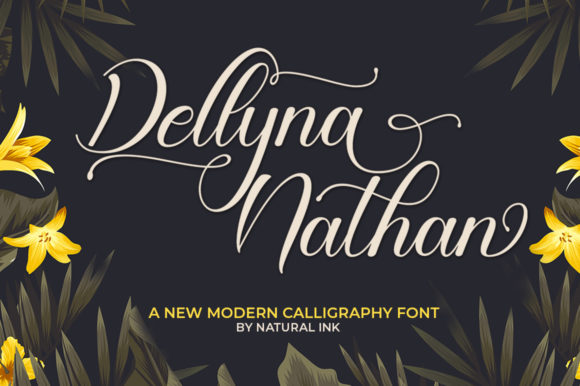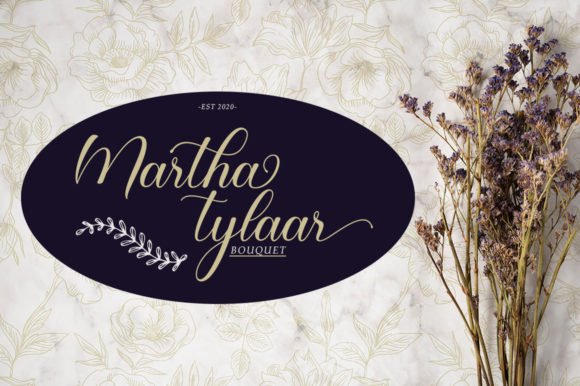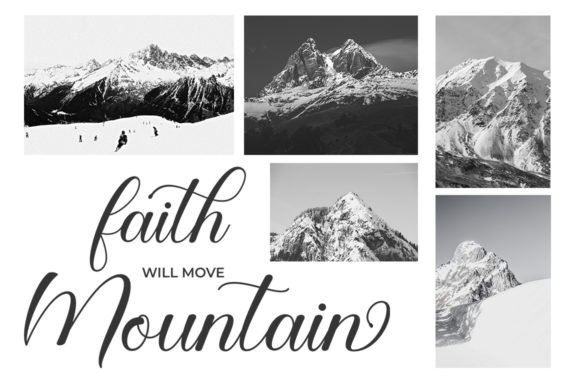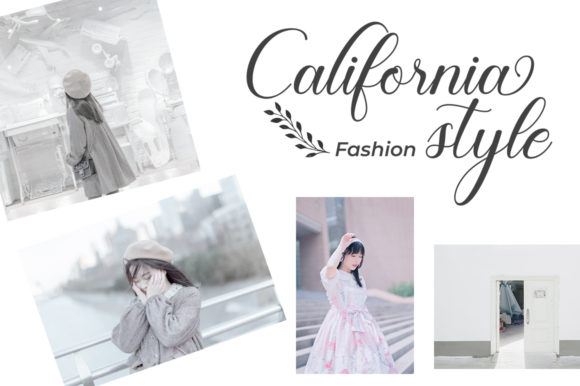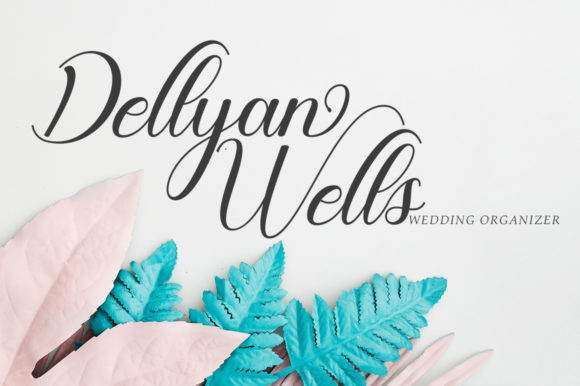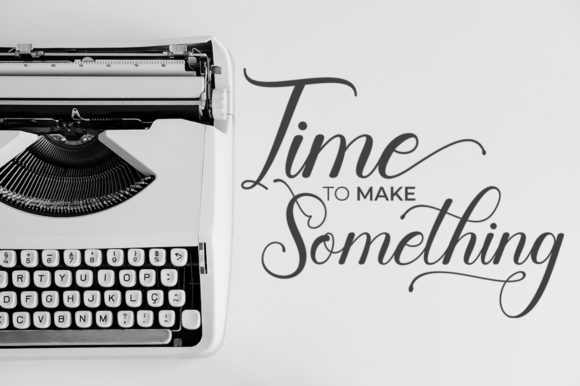
Dellyna Nathan Font
About Dellyna Nathan Font
Dellyna Nathan is a handwritten font inspired by classic typography and brings its own unique style to any design project. Get inspired by its authentic feel and use it to create gorgeous wedding invitations, beautiful stationary art, eye-catching social media posts, and cute greeting cards.